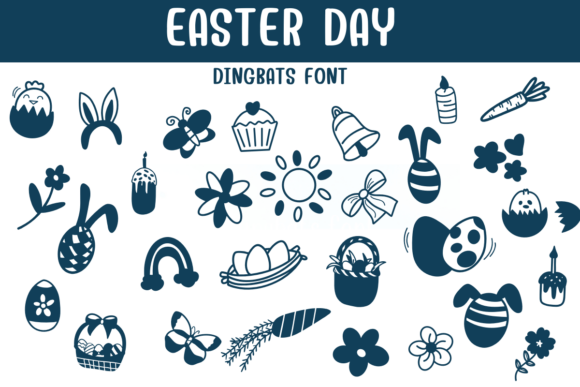
Spring into Creativity with Easter Day Font
As a designer, have you ever found yourself stuck on a project, struggling to add that extra touch of personality? Maybe you’re working on a spring-themed campaign, or perhaps you’re crafting the perfect Easter card for a loved one. Whatever the case, we’ve got just the thing to get those creative juices flowing – Easter Day Font, a delightful collection of festive icons designed to bring joy and charm to your designs.
This versatile dingbat font is packed with everything you need to create stunning springtime and Easter-themed designs. From adorable bunnies and decorated eggs to blooming flowers and sunny skies, Easter Day Font is the perfect addition to your design toolkit. Whether you’re a seasoned pro or just starting out, this font is sure to bring a smile to your face and make your designs shine.
- Unique Characteristics: Features a unique Easter egg-inspired design, with intricate details and ornaments, making it perfect for holiday-themed projects
Easter Day Font Review
I recently had the chance to work with the Easter Day Font, and I must say it’s a unique and eye-catching choice for any project that needs a spring-inspired feel. ✨ Here are some of its strengths:
- Playful and whimsical feel that’s perfect for Easter-themed designs or spring-inspired projects
- Lots of creative possibilities with the various font styles and combinations
- Great for adding a pop of color and visual interest to designs
However, like any font, it’s not perfect. ✠ Here are some limitations I encountered:
- May not be suitable for formal or professional projects due to its playful and whimsical nature
- Some characters may not render correctly in certain font sizes or styles
- Can be overwhelming if used too extensively, so be mindful of balance and contrast
Overall, I think the Easter Day Font is a great choice for designers who want to add some springtime magic to their projects. It’s perfect for social media graphics, greeting cards, or any other design that needs a fun and playful touch. Just be aware of its limitations and use it thoughtfully.
The Easter Day Font is ideal for creating festive and seasonal designs, such as Easter cards, invitations, and decorations. To get the most out of it, use it in combination with pastel colors and spring-inspired graphics. You can also use it to add a touch of whimsy and playfulness to your designs.